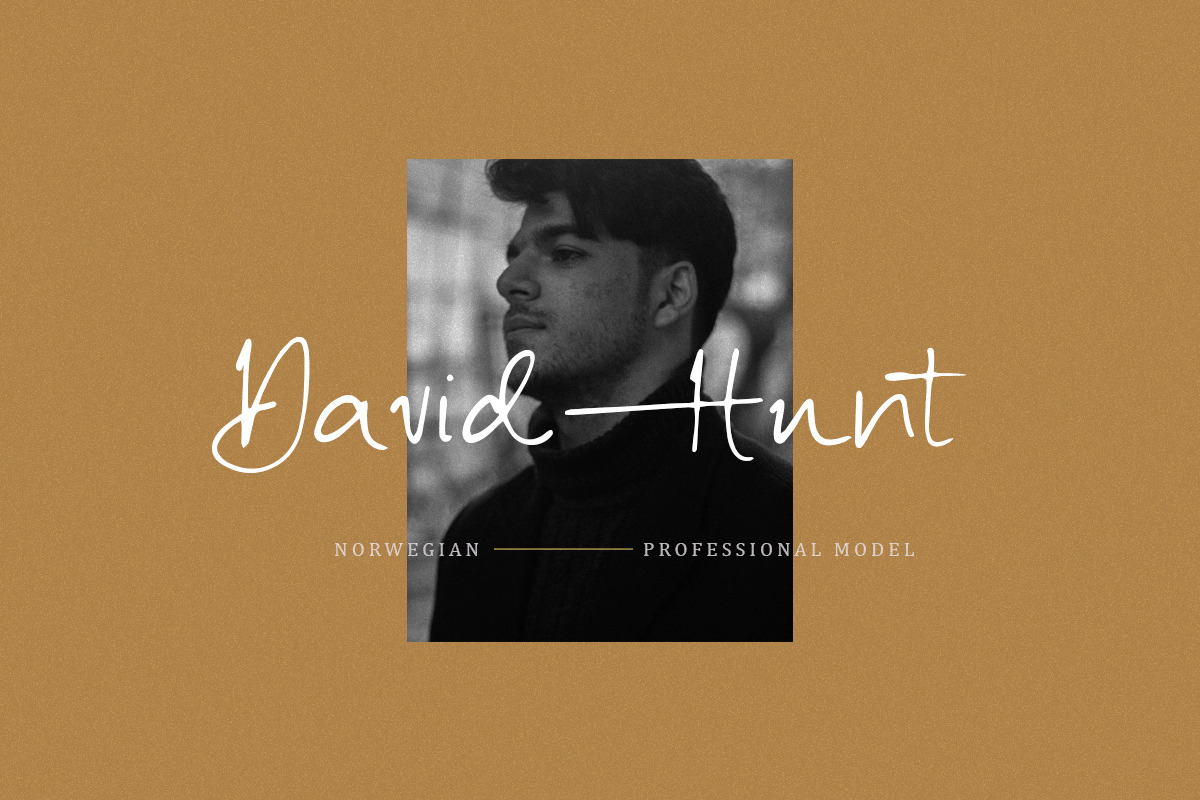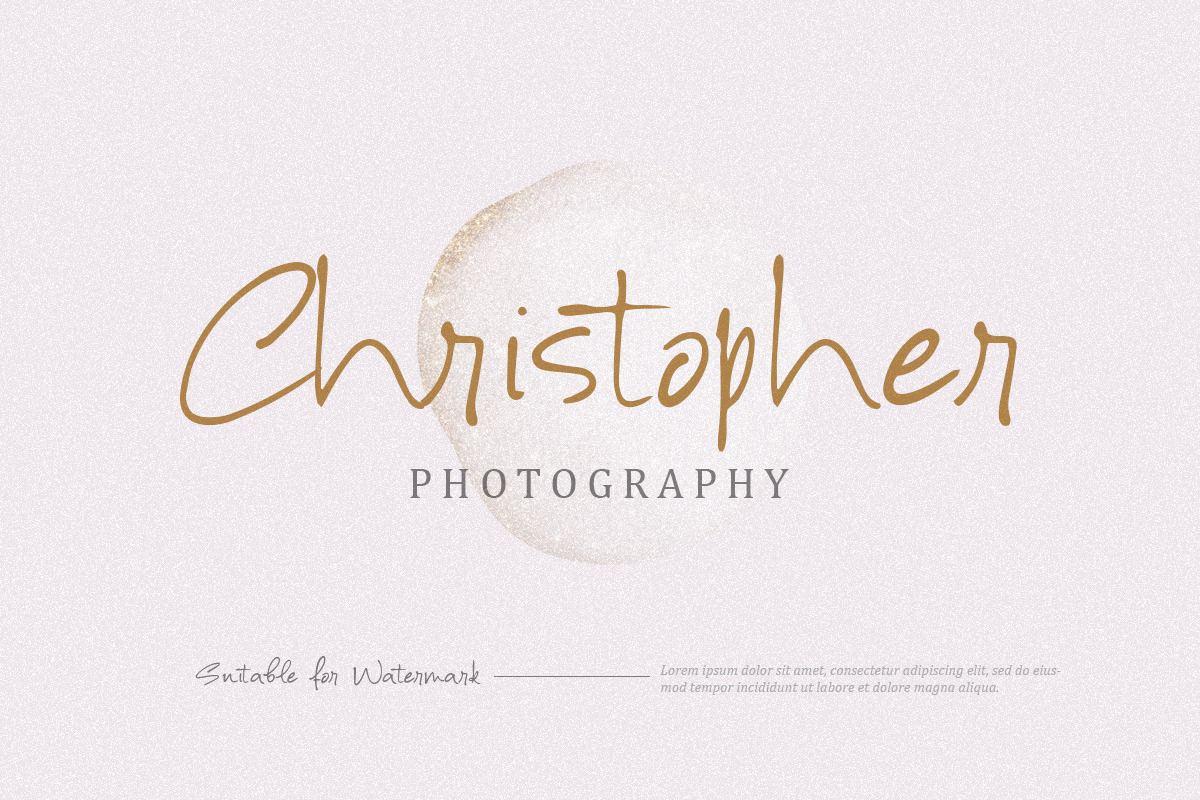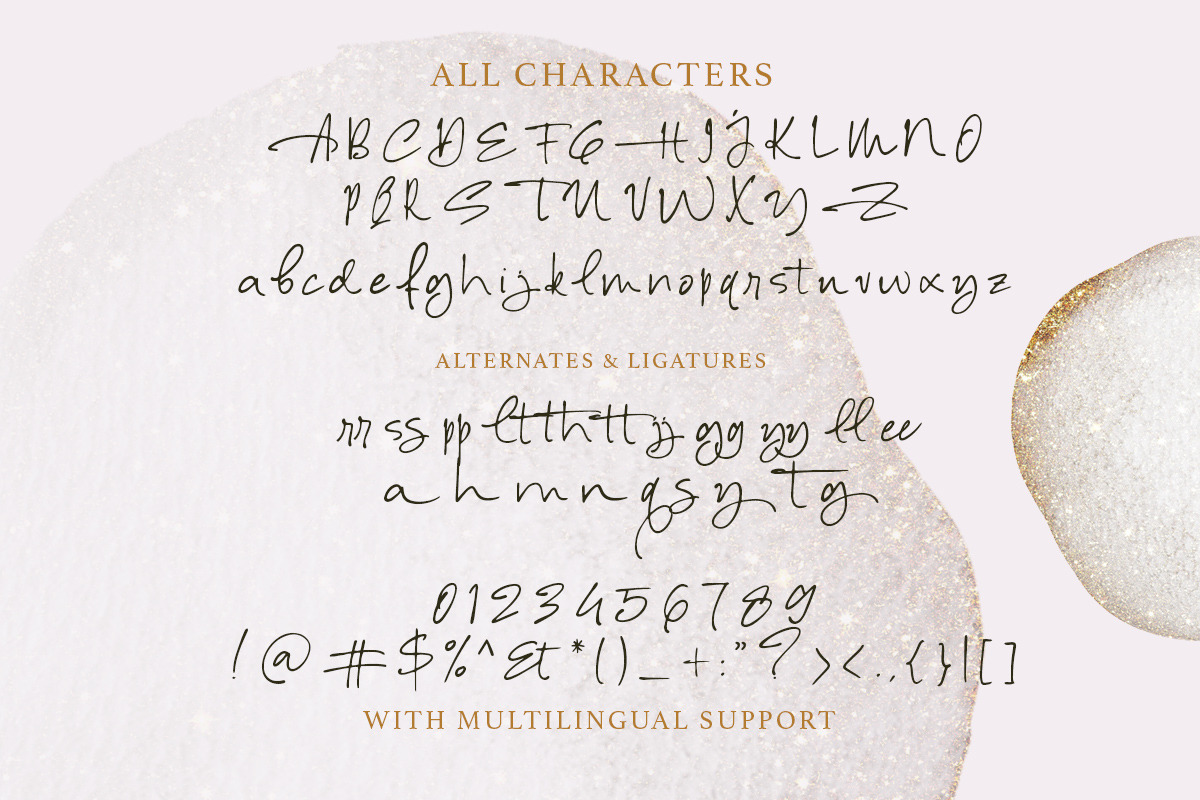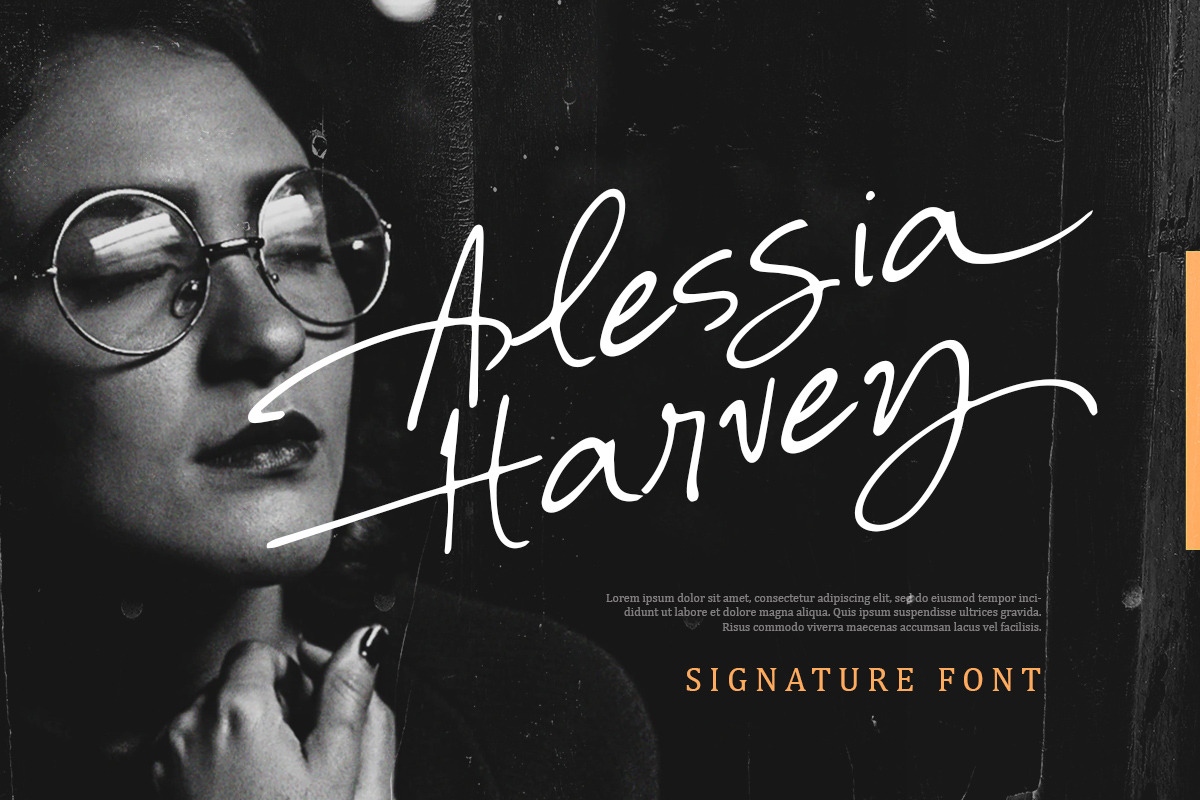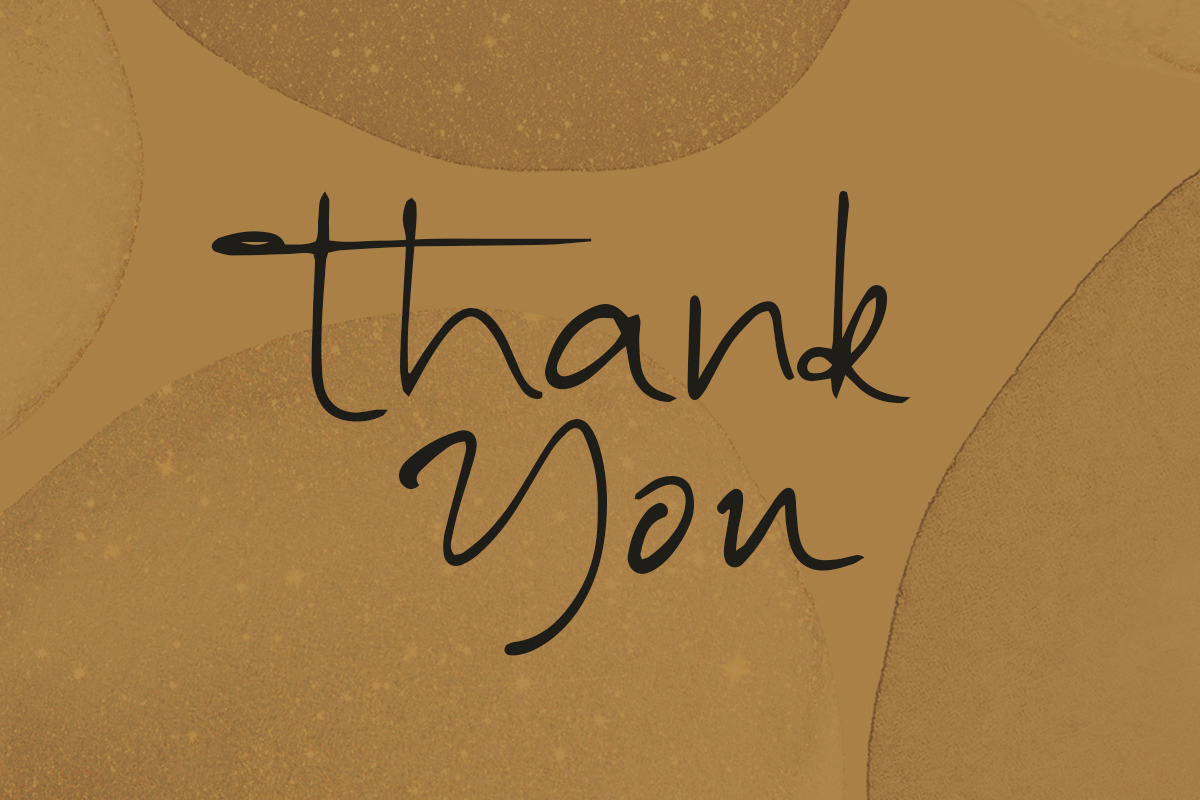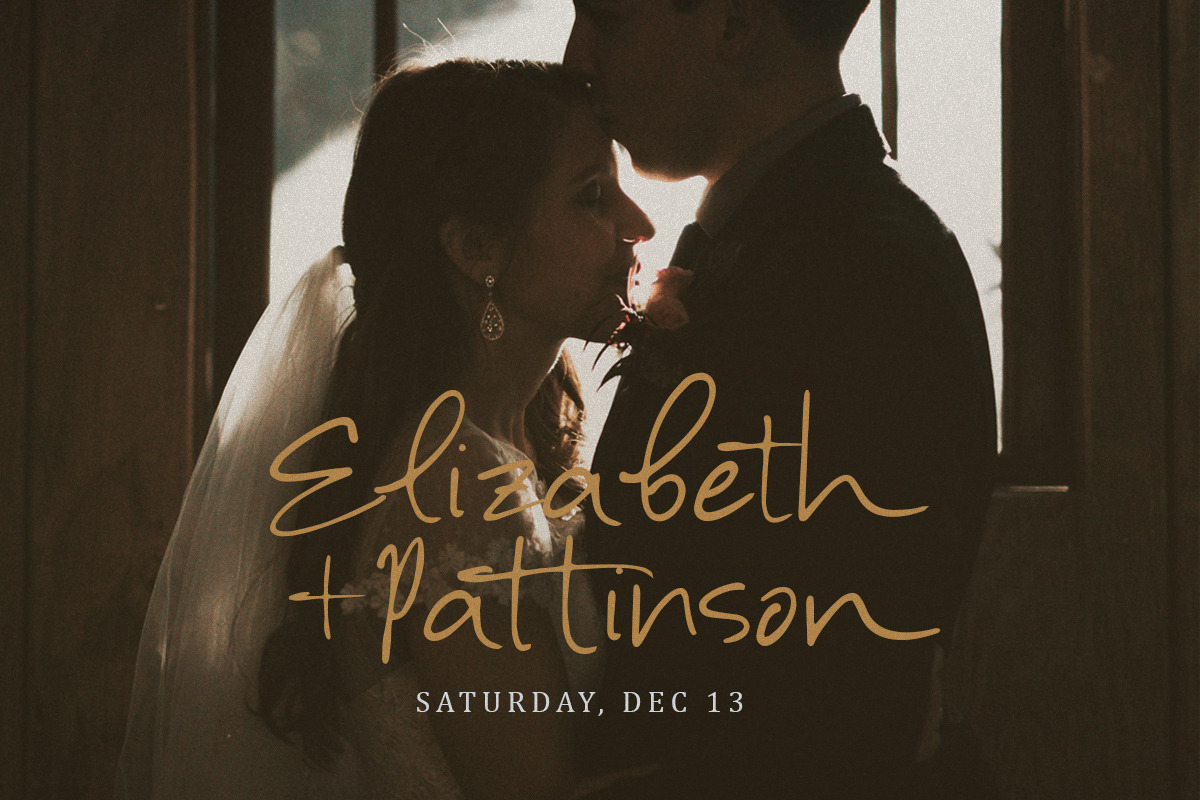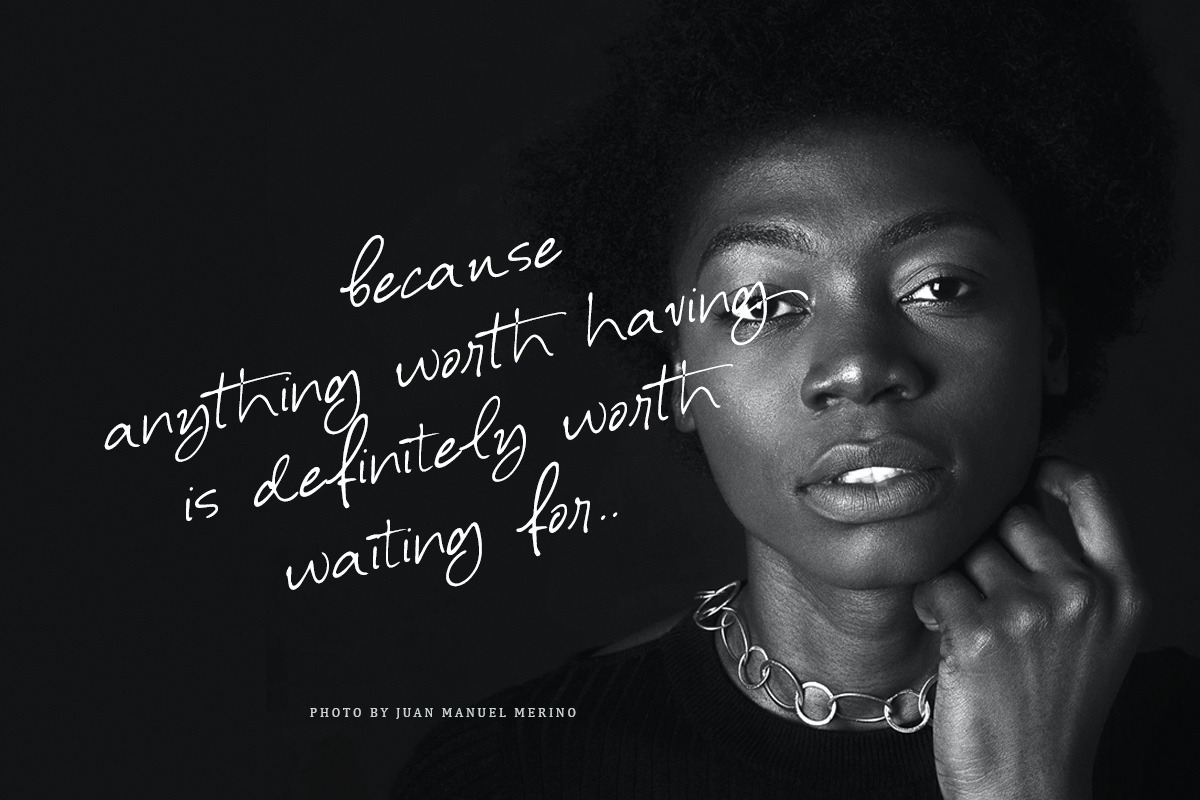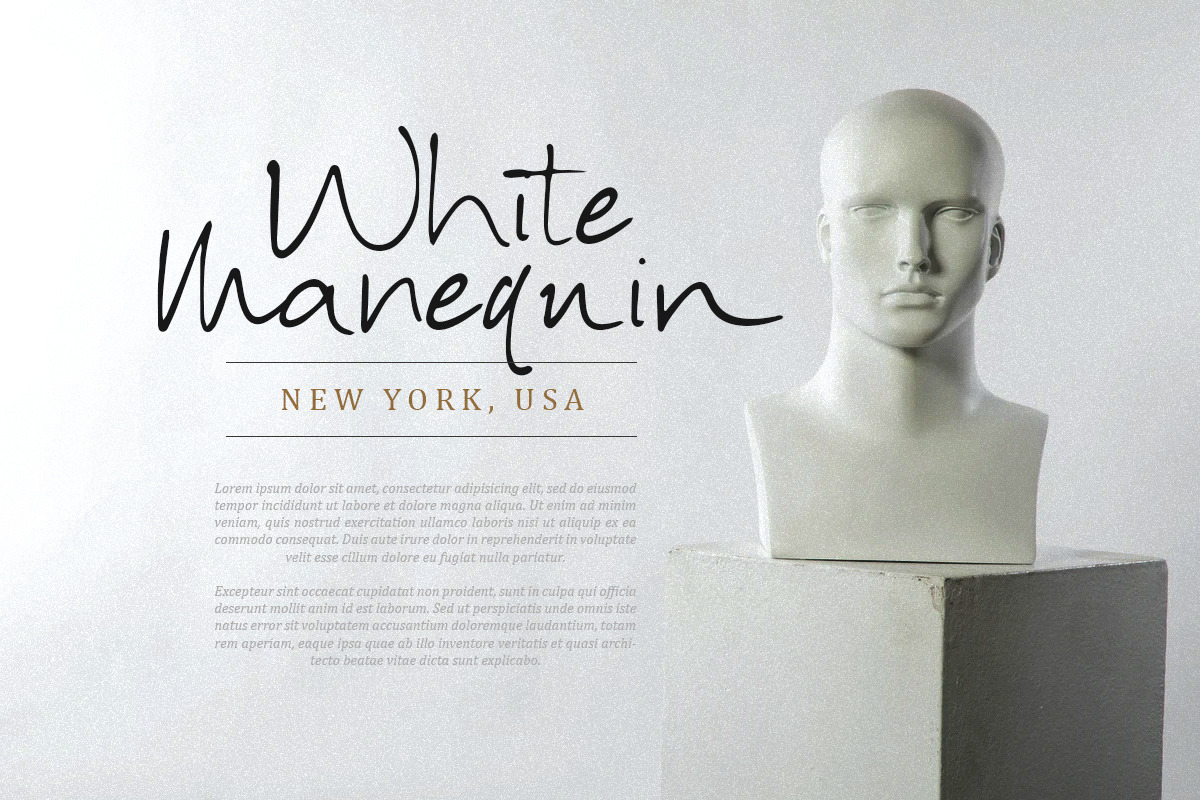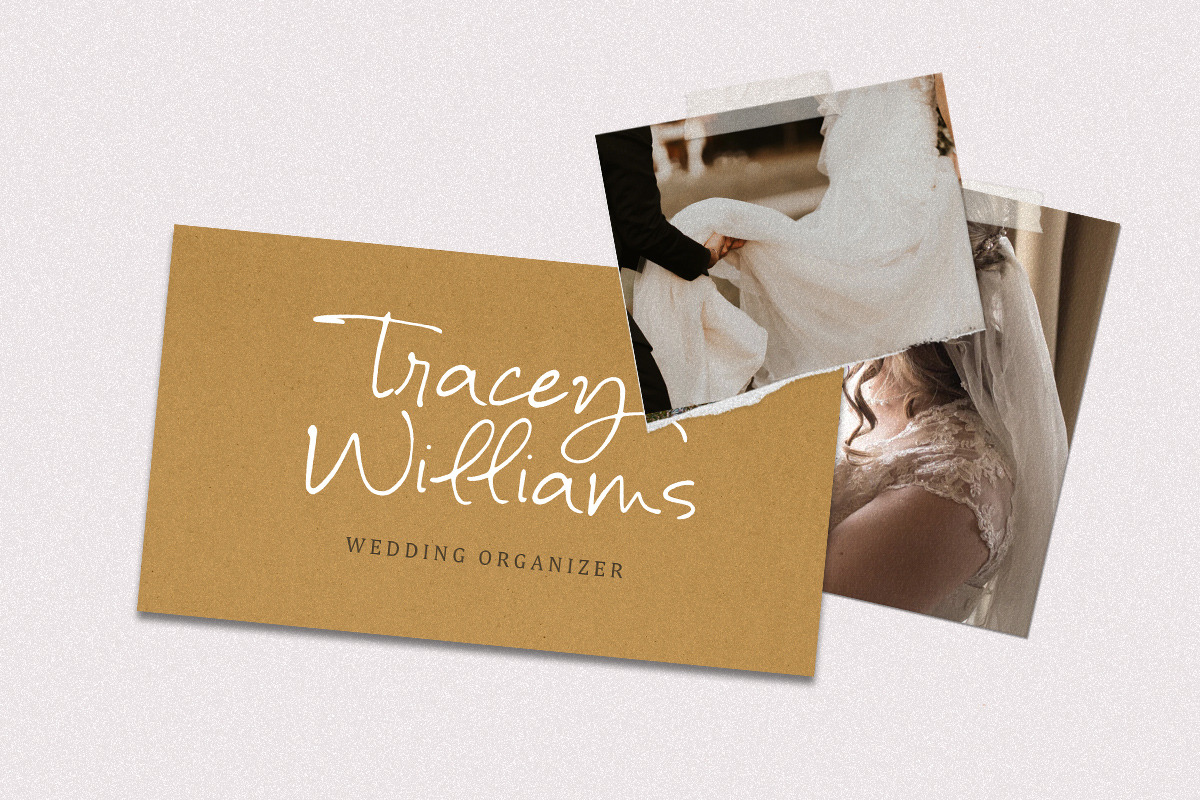
Alessia Harvey - Signature Font
Introducing, Alessia Harvey - an authentic hand writing with natural signature style. This type of font perfectly made to be applied especially in logo, and the other various formal forms such as invitations, labels, logos, magazines, books, greeting / wedding cards, packaging, fashion, make up, stationery, novels, labels or any type of advertising purpose.
- alternates and ligatures